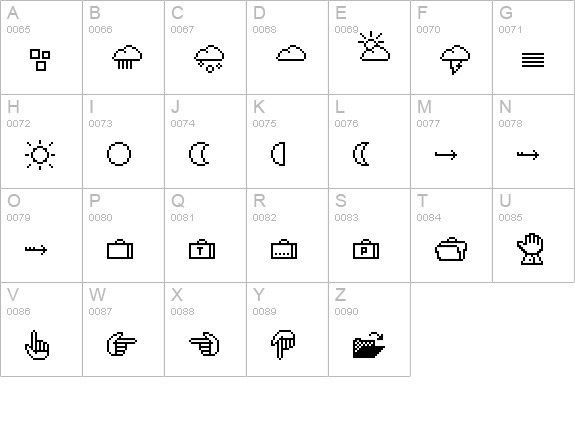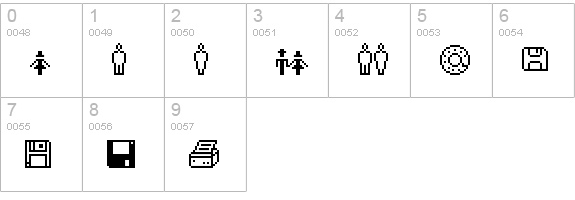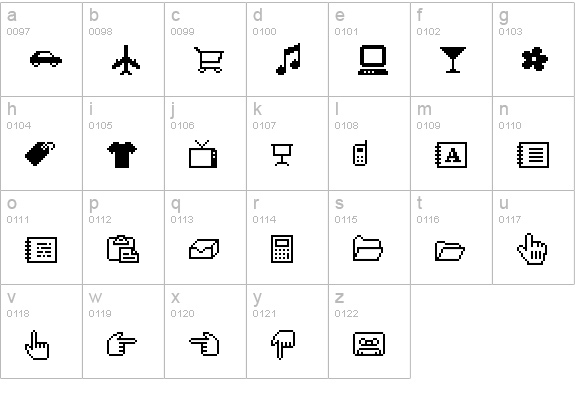
CD-Icons Font Details
CD-Icons font is a versatile and stylish typeface that is perfect for adding a modern touch to your designs. This unique font features a collection of sleek and contemporary icons that are perfect for various projects such as websites, presentations, and print materials. With its clean lines and sharp edges, CD-Icons font is sure to grab the attention of your audience. Best of all, CD-Icons font is completely free to download at FontsMarket.com. This means you can easily enhance your designs with this eye-catching font without any cost. So, why wait? Download CD-Icons font today and make your projects stand out with its modern and sophisticated style.